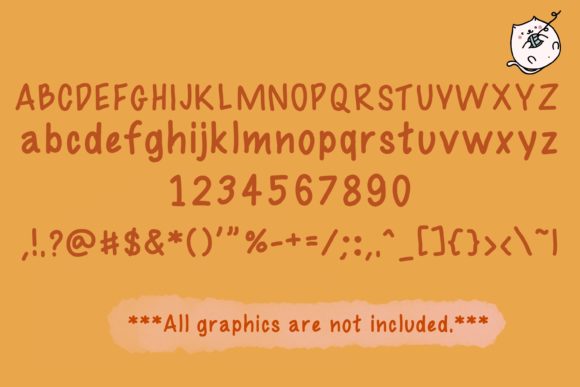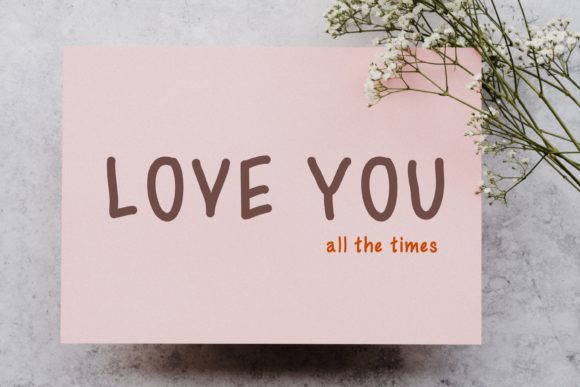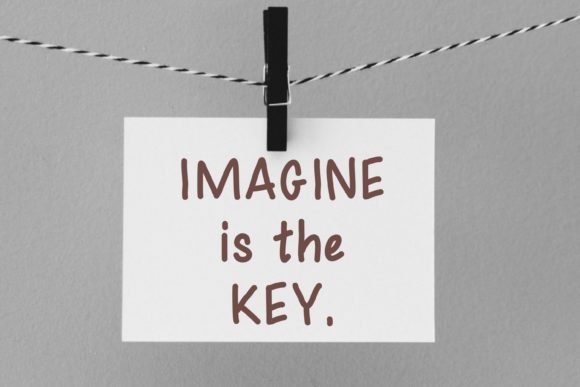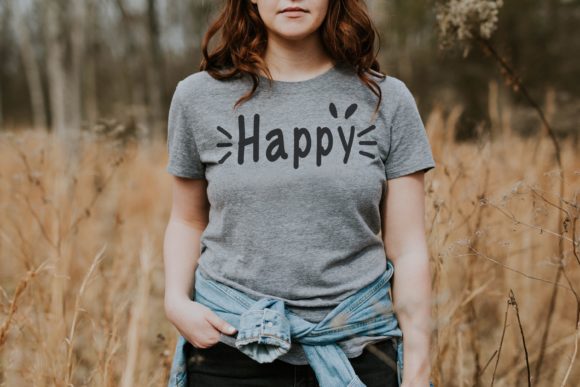
Aspena Font
About Aspena Font
Aspena is a delightful handwritten font that exudes a charming and lively style. With its playful and vibrant character, this font is an excellent choice for adding a touch of joy and energy to your designs. Whether you’re working on invitations, greeting cards, posters, social media graphics, or any other creative project, Aspena is sure to bring a sense of liveliness and fun.
The sweet and full-of-life style of Aspena makes it particularly suitable for designs aimed at capturing attention and creating a positive, cheerful atmosphere. Its whimsical and organic letterforms give it a handcrafted and personalized feel, making your designs stand out with a unique touch. Whether you’re creating birthday cards, party invitations, or any design that calls for a fun and light-hearted vibe, Aspena will elevate your creations.
One of the great advantages of Aspena is its versatility and endless variations. The font offers a range of alternate characters, ligatures, and swashes, allowing you to explore different stylistic options and create customized looks. This gives you the freedom to experiment and find the perfect combination for your specific design needs. You can mix and match the various glyphs and swashes to add even more personality and uniqueness to your designs.
With Aspena, you can infuse your projects with a sense of playfulness and joy. Its cute and lively nature will instantly captivate your audience and bring a smile to their faces. Whether you’re designing for children or adults, Aspena’s versatility ensures that it can adapt to a wide range of themes and purposes.
In summary, Aspena is a cute handwritten font that radiates a sweet and full-of-life style. It adds a touch of joy and liveliness to your designs, making it perfect for brightening up various projects. With its endless variations and playful charm, Aspena invites you to have fun and explore its creative possibilities.